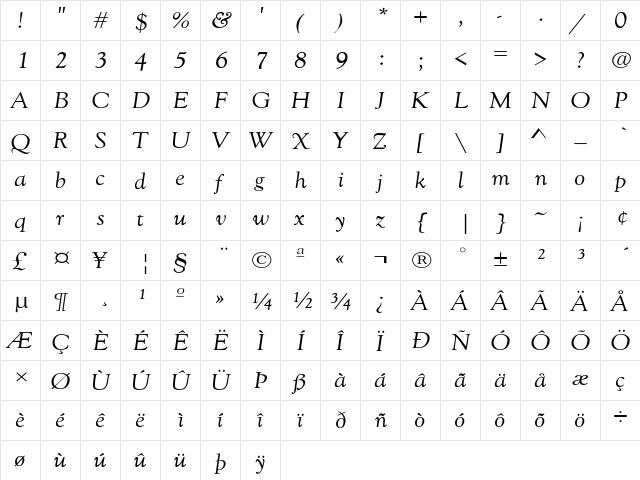
GoudyExt-Normal-Italic Regular
Design Context for GoudyExt-Normal-Italic Typeface
GoudyExt-Normal-Italic takes a measured approach to typography — its balanced proportions and neutral character make it a reliable workhorse for both digital and print work. Its italic angle brings a sense of urgency and motion to the letterforms.
Pro Tip: Use GoudyExt-Normal-Italic for emphasis, pull quotes, and subheadings where its slanted energy can add rhythm to the layout.